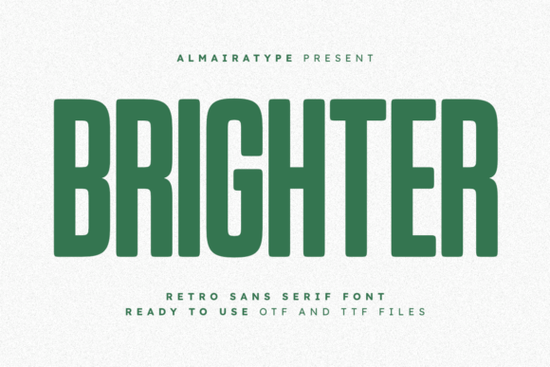
If you're looking for a retro sans serif font that works just as well on a t-shirt design as it does in a Cricut vinyl cut or a small business logo, Brighter Font is worth your attention. It’s not overly decorative or hard to read instead, it strikes a balanced, friendly tone with clean lines and gently rounded edges. Think of the kind of typeface you’d see on a vintage record sleeve or a 1970s diner sign, but redrawn with care for today’s screens and printers. It’s built tall and solid, so it holds up at small sizes and shines large ideal for headlines, posters, and merch.
Who actually uses Brighter Font and why?
Designers building brand identities for lifestyle brands often reach for Brighter when they want something warm but professional no sterile minimalism, no chaotic retro overload. Print-on-demand sellers use it for apparel because it scales cleanly across shirt prints, mugs, and tote bags without losing impact. Crafters using Cricut or Silhouette machines appreciate how its smooth curves cut cleanly and weed easily, especially in medium to large sizes. And small businesses launching a new product line (think candles, ceramics, or organic skincare) find it pairs nicely with hand-drawn elements or soft photography it adds structure without feeling cold.
How does it compare to other retro-inspired fonts?
Unlike some retro fonts that lean heavily into distressed textures or exaggerated quirks, Brighter keeps things legible and versatile. It doesn’t try to be everything just a confident, approachable sans serif with personality. If you’ve used Sirage Font, you’ll notice Brighter has more vertical presence and slightly softer corners. Sirage feels more contemporary and neutral; Brighter leans into warmth and nostalgia without going full throwback. Neither is “better” they serve different moods and projects.
What kinds of files and features come with it?
Where does it work best and where might it fall short?
Works great for:
- T-shirt and hoodie designs (especially front-chest or center-back placements)
- Instagram story text overlays and Reels thumbnails
- Small-batch product labels and packaging (e.g., soap bars, tea tins)
- Cricut vinyl decals for walls, laptops, or water bottles
- Posters, flyers, and event signage where clarity matters at a glance
Less ideal for:
- Long paragraphs or body text (it’s a display font not meant for reading blocks of copy)
- Ultra-thin or ultra-light applications (no light or hairline weights are included)
- Brands aiming for strict corporate or technical aesthetics (think law firms or SaaS dashboards)
Real-world tips from designers who use it regularly
One POD seller told us she pairs Brighter with a simple sans serif like Montserrat for contrast using Brighter for the main phrase (“Good Vibes Only”) and Montserrat for the smaller tagline (“hand-poured soy candles”). Another craft enthusiast shared that she adjusts letter spacing by +20–30 units in Cricut Design Space to keep words from feeling cramped, especially in all-caps layouts. A few users also mentioned testing print samples first: while Brighter renders cleanly on screen, fabric texture or paper finish can soften its edges so ordering a test shirt or sticker helps avoid surprises.